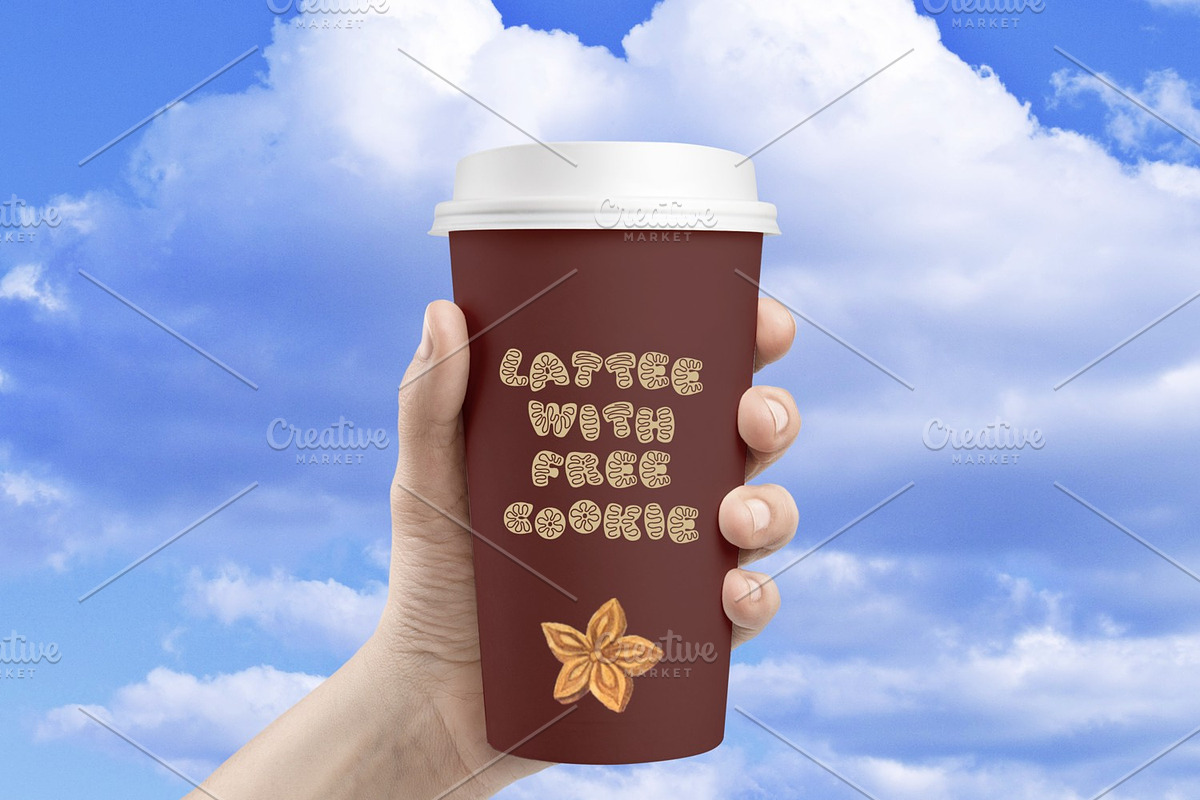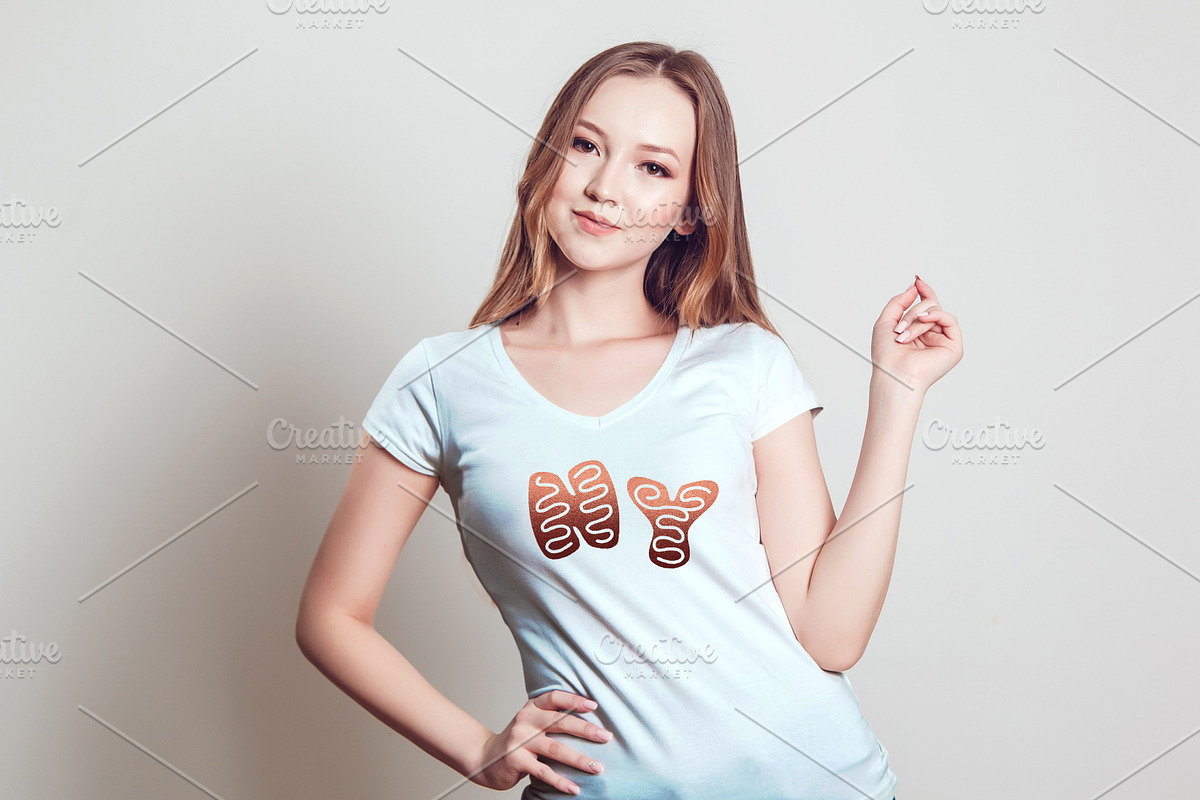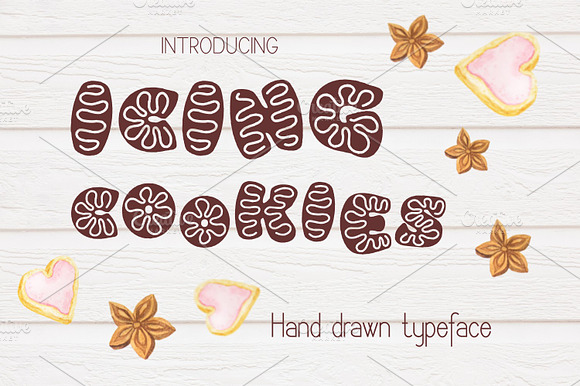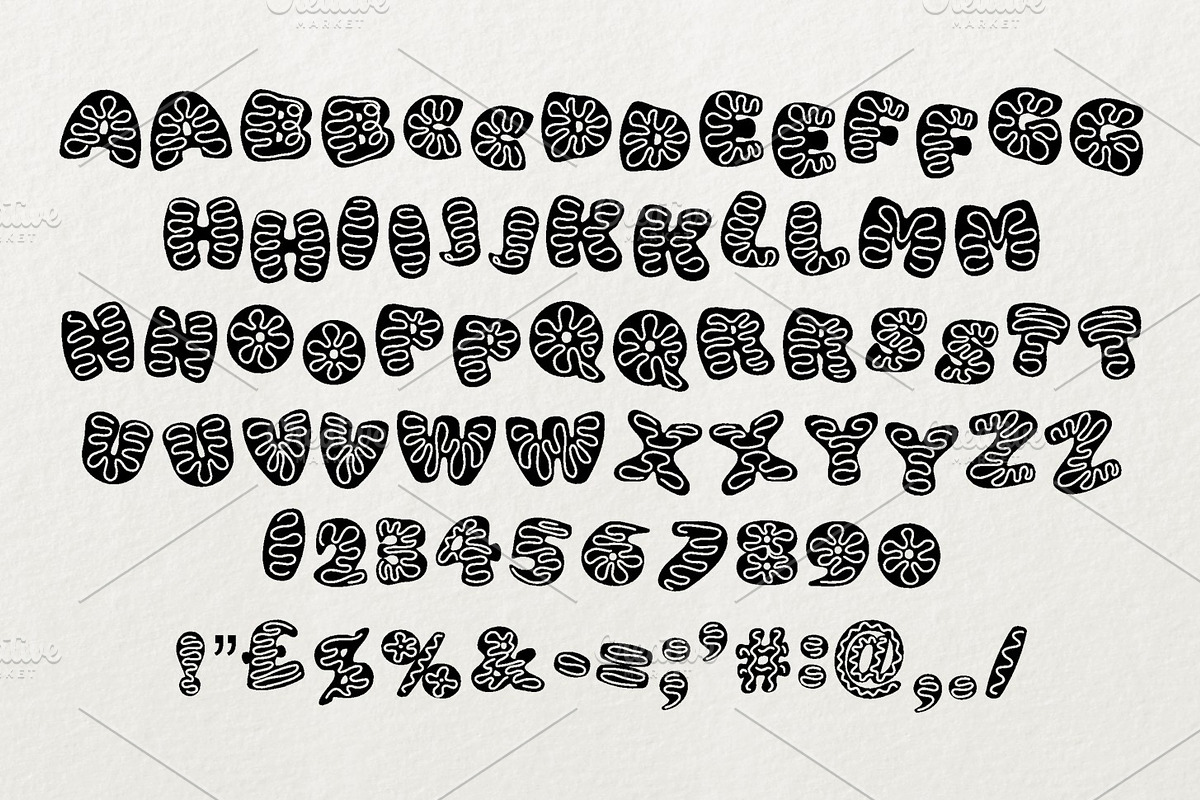
Icing cookies Font
Introducing Icing cookies - a hand drawn typeface.
Icing cookies font perfect for titling, signage, logo, poster, flyers or t-shirts design, headlines, and more!
Why Icing cookies Font is worth a look
Icing cookies Font by Digital Typeface Studio fits naturally into Branding, posters, packaging, typography.